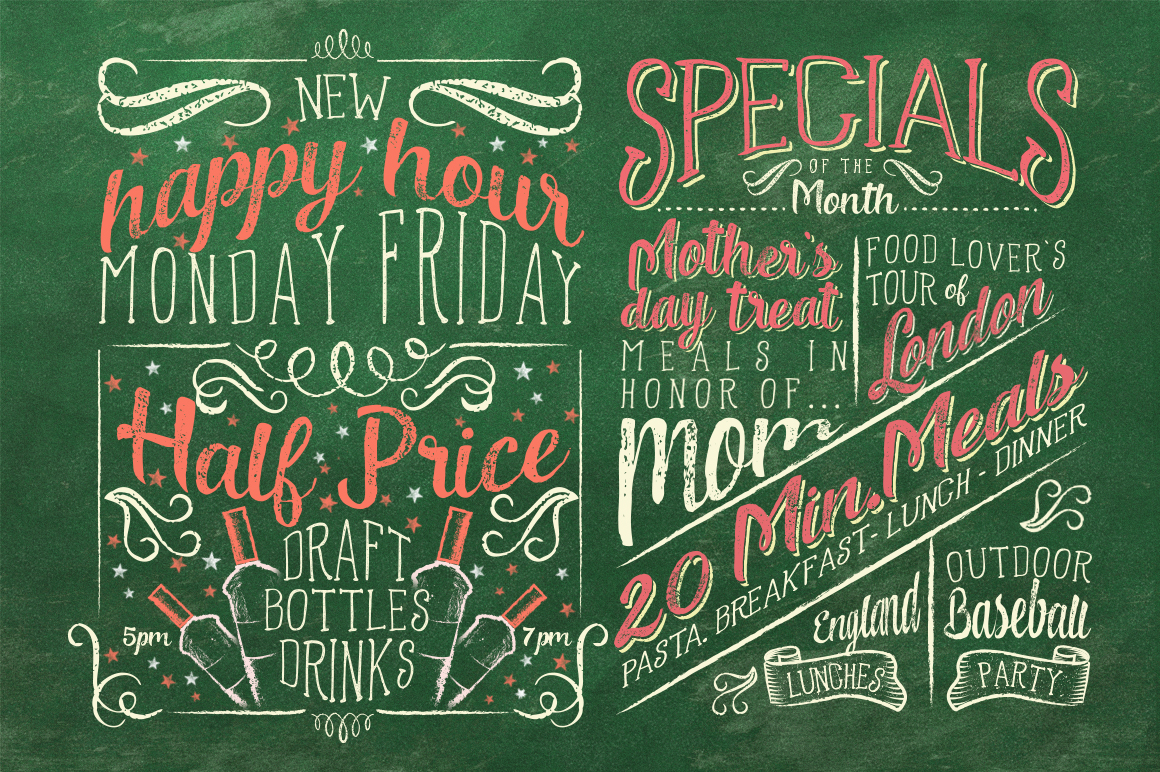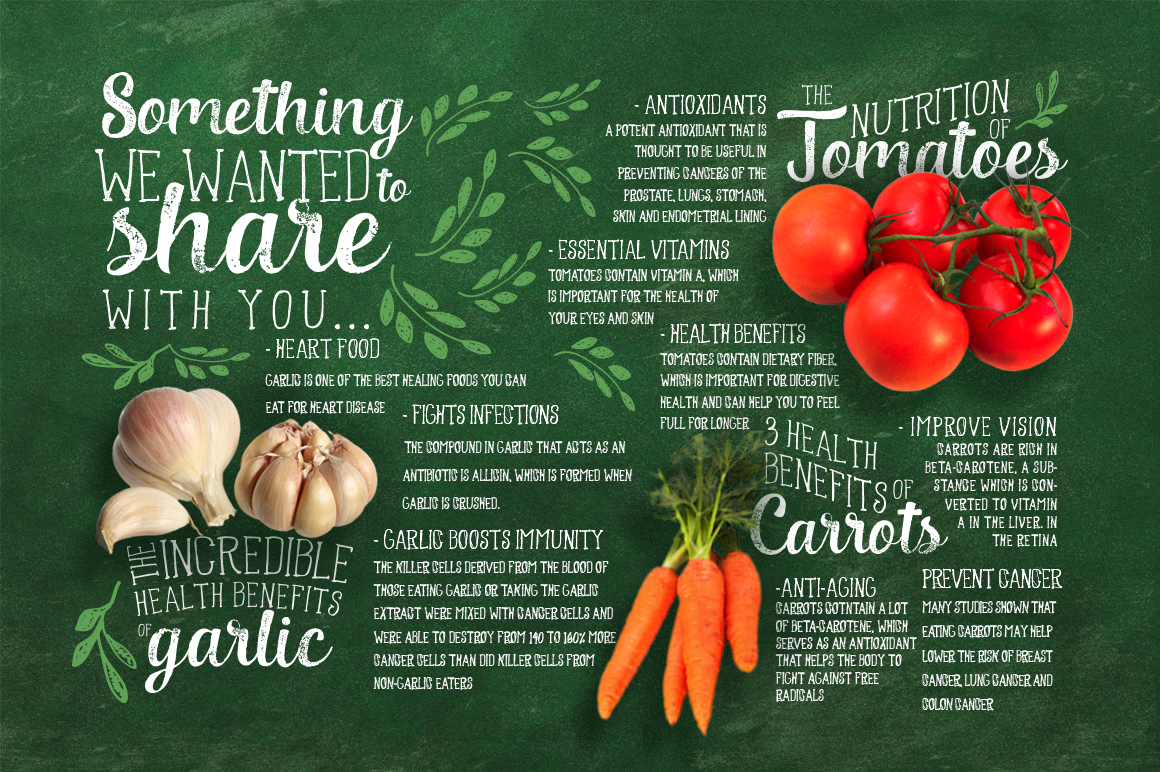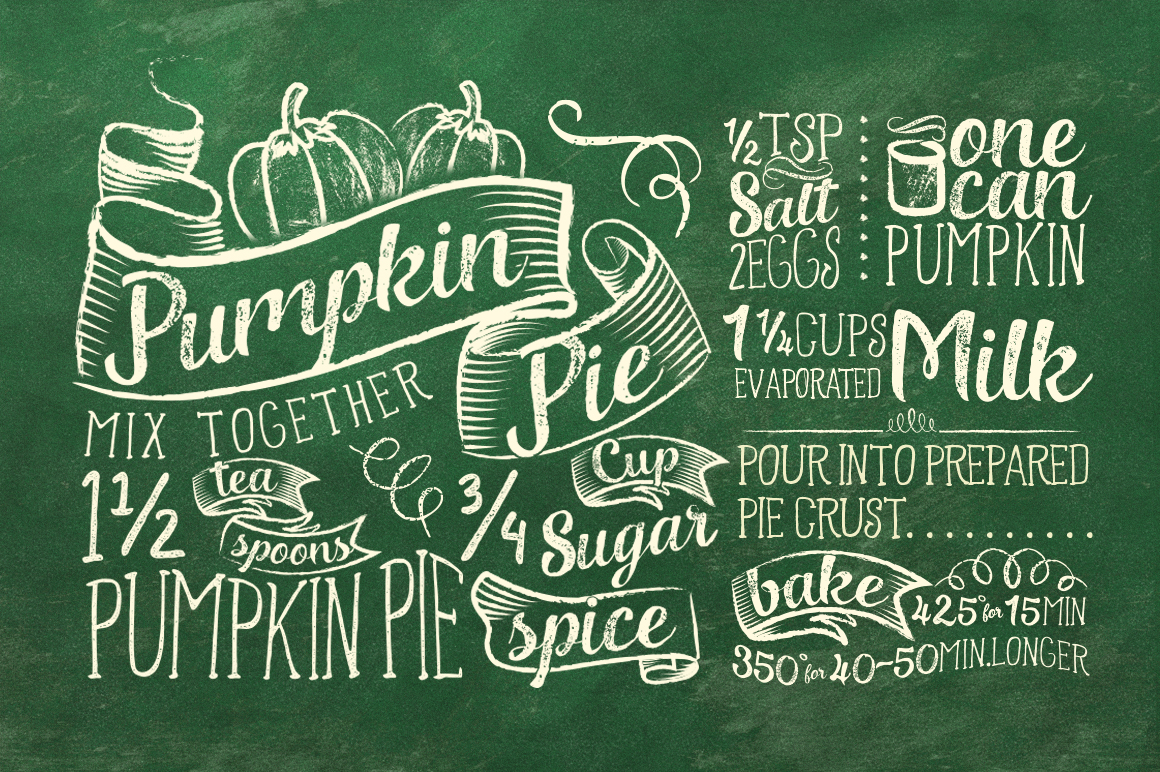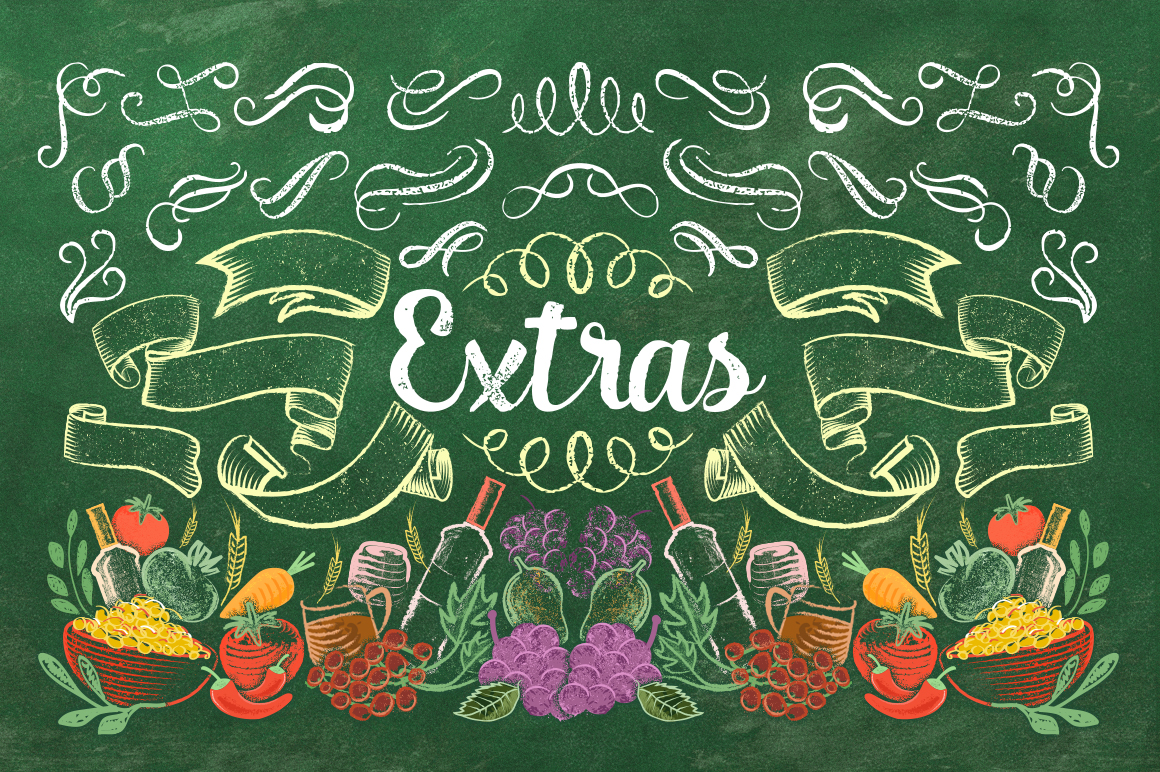
HomeScript FontsLaChalk Font Script Fonts LaChalk Font FacebookXPinterestWhatsApp LaChalk Font Poster 2 LaChalk Font Poster 3 LaChalk Font Poster 4 LaChalk Font Poster 5 LaChalk Font Poster 6 About LaChalk Font LaChalk is a cafe menu inspired type, specifically designed to create that care/restaurant chalk effect. DOWNLOAD NOW People also explored The Brittany Font Christmas Highway Font Sugar Mango Font Winter Handmade Font Cinnamon Swirl My Heart Font Alpine Font Peanut Butter Font Habits Monuga Font 468 0 TagsLaChalk Font Previous articleSpringbreak FontNext articleJune Apple Font LEAVE A REPLY Cancel reply Comment: Please enter your comment! Name:* Please enter your name here Email:* You have entered an incorrect email address! Please enter your email address here Website: Save my name, email, and website in this browser for the next time I comment. Personal Use Free Angelika Playful Personal Use Free Read more about this font Elsabetha Personal Use Free Read more about this font Monogram Calligraphy Personal Use Free Read more about this font Sushi Stroke Personal Use Free Read more about this font BLOG Where to Buy American Fonts Online in 2024 Where to Buy American Fonts Online: The Ultimate Guide for 2024 Looking for the perfect American font to elevate your design projects? You're in the... Free vs Paid Fonts: Why Investing in Premium Fonts Is Worth It Transform Your Website: Elevate Your Typography with 7 Best Web Font Generators The 10 Best Handwriting Fonts to Add Personality to Your Designs